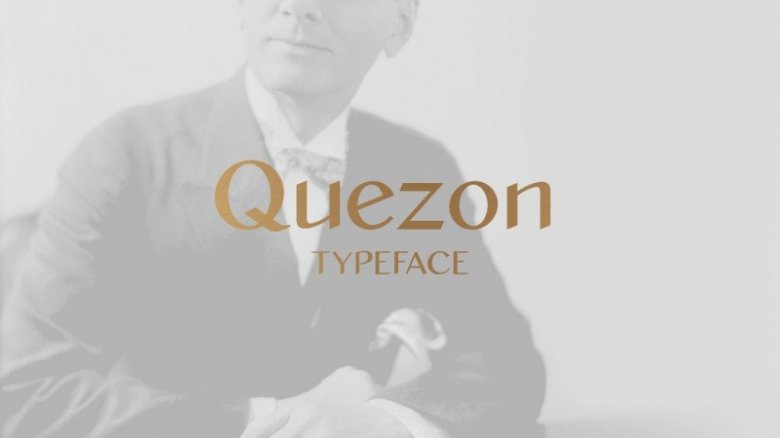
Quezon Sans Serif Font
Quezon Sans Serif Font is a humanist font named after the “Father of the Filipino Language. This city is also the place where the author, Kimchi Lee growing up. Inspired by a mixture of art deco, the ancient Filipino script “Baybayin”, and the old buildings of Metro Manila still standing today. The typeface features sharp angled lines with elegant gentle slopes. Quezon will make it perfect on the corporate logo, headline, and branding as well.